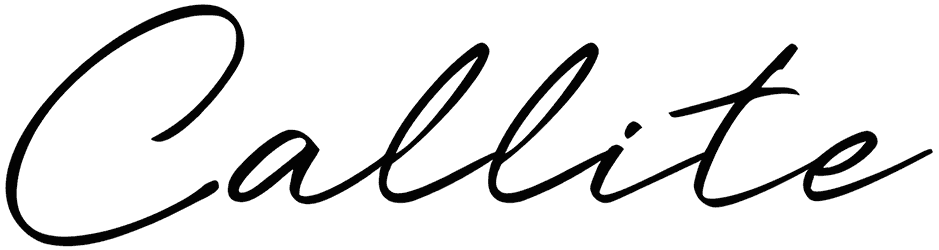
Hunterland Ontime Font
With elegant and minimal character designs, Hunterland Ontime font brings a modern look to your texts! You can use it for any branding logo, fashion book, channel banners, movie titles, and business cards.
This wedding font has thin characters and can give a cool and intense makeover to your texts with its curly and continuous lettering style, which is hard to read. This font also has two files, one regular and the other in an italic style.
Designed by: Perspectype Studio